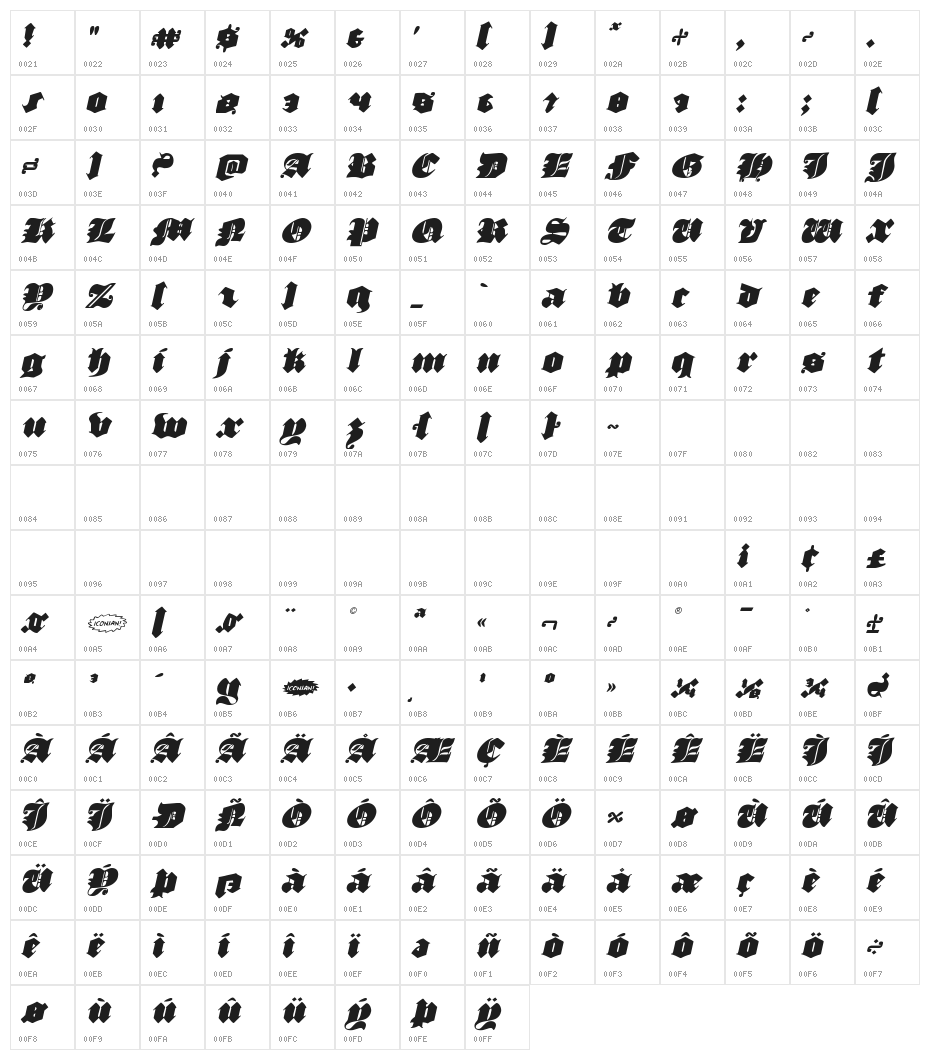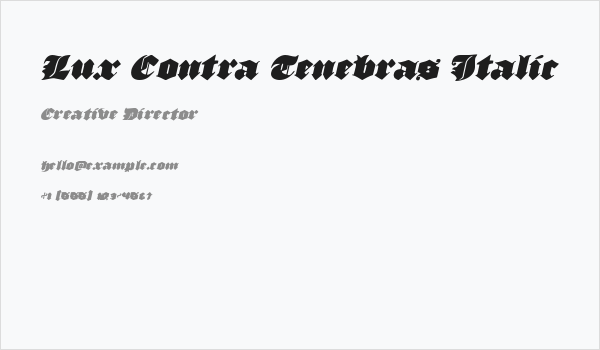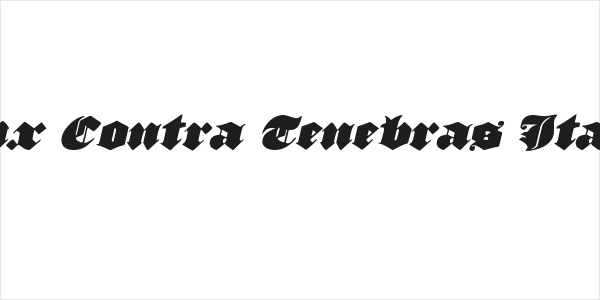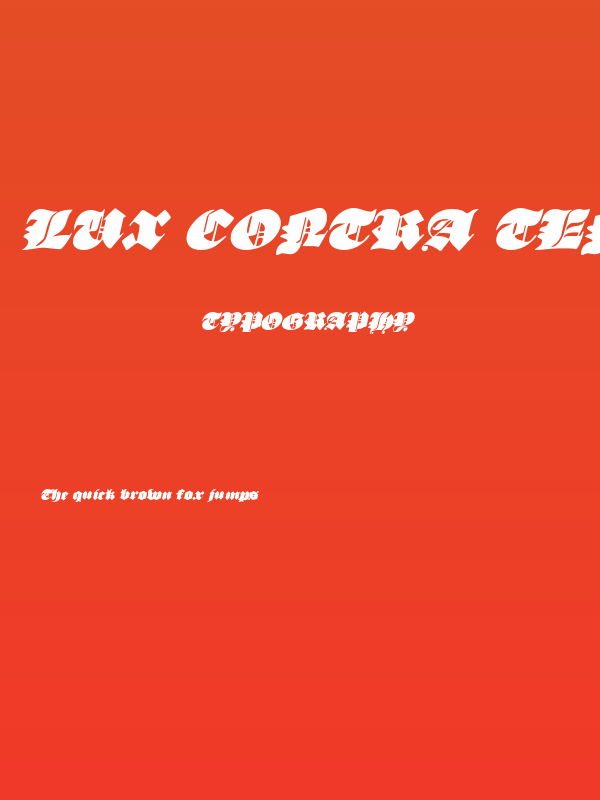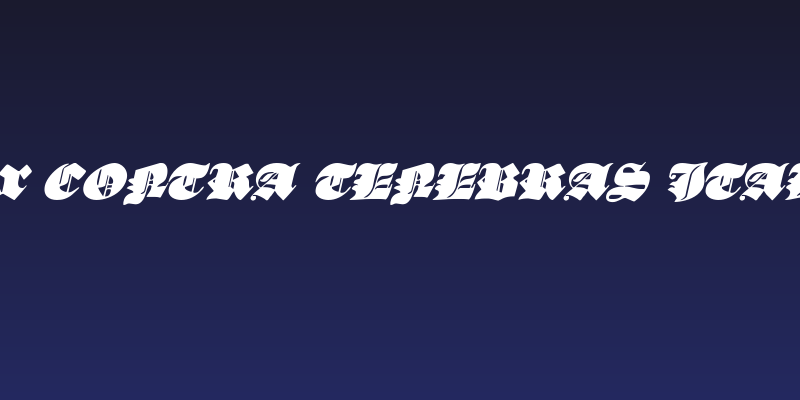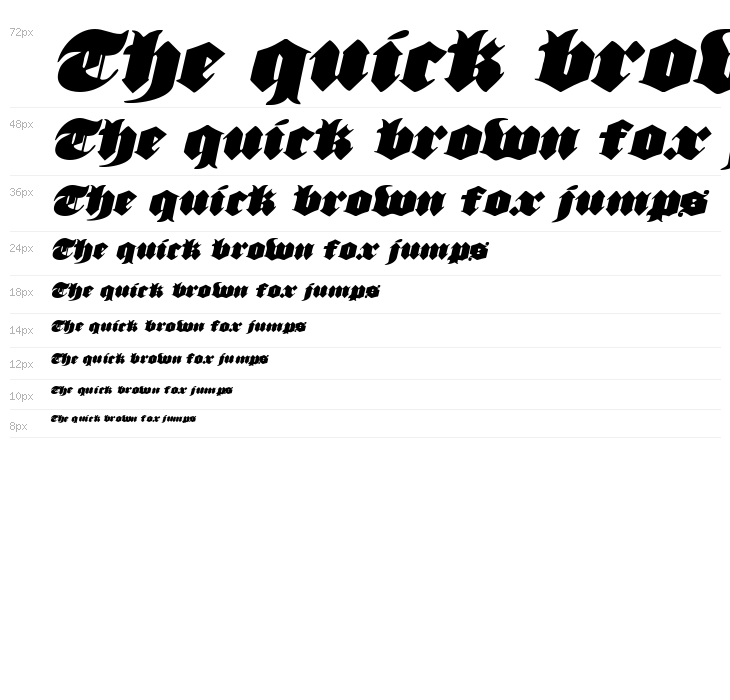
Lux Contra Tenebras Italic Font
Lux Contra Tenebras Italic Description
This font features a bold and dramatic blackletter style, characterized by its intricate and ornate letterforms. The strokes are thick and angular, with sharp, pointed serifs and decorative flourishes that give it a gothic and medieval appearance. The uppercase letters are particularly elaborate, with sweeping curves and embellishments, while the lowercase letters maintain a consistent style with slightly less ornamentation. The numbers and special characters are designed to match the overall aesthetic, ensuring a cohesive look across all glyphs. This font is ideal for creating a strong visual impact and conveying a sense of tradition and history.
| Overall Style | Gothic, Medieval, Decorative |
| Proposed Projects | Suitable for use in branding, posters, book covers, and any project requiring a historical or gothic theme. |